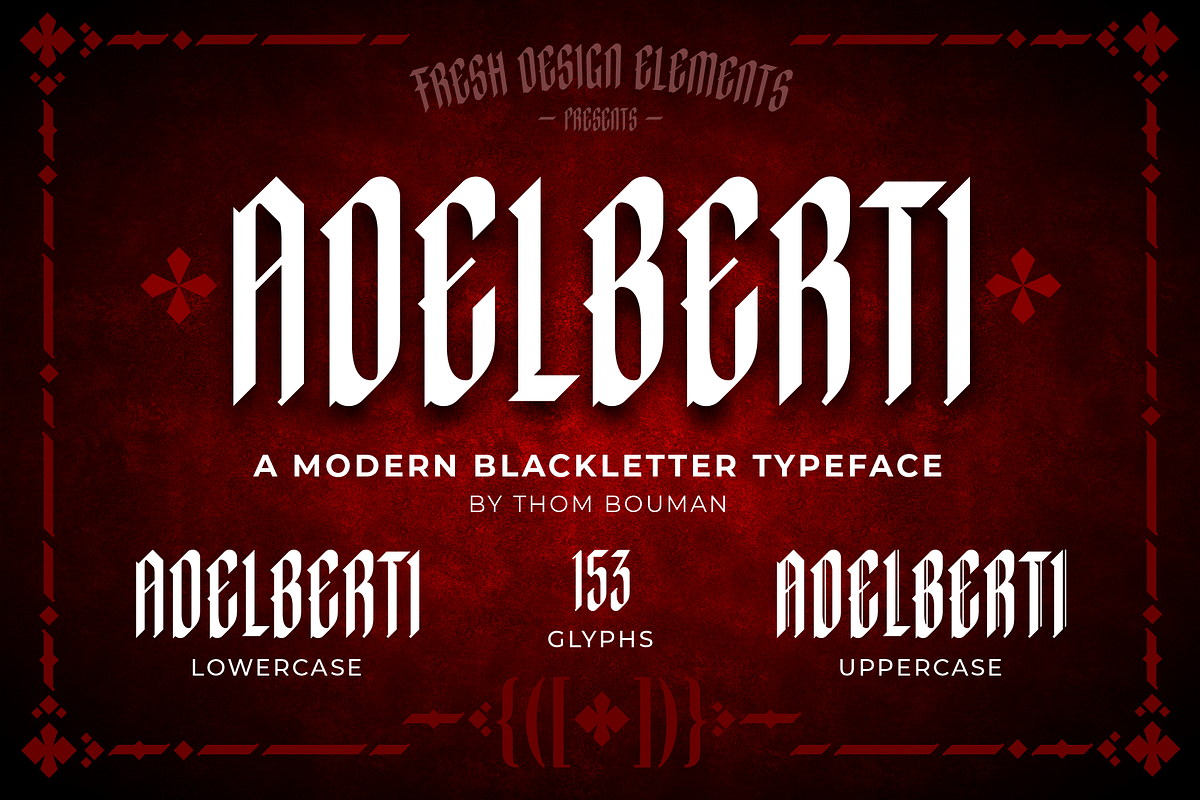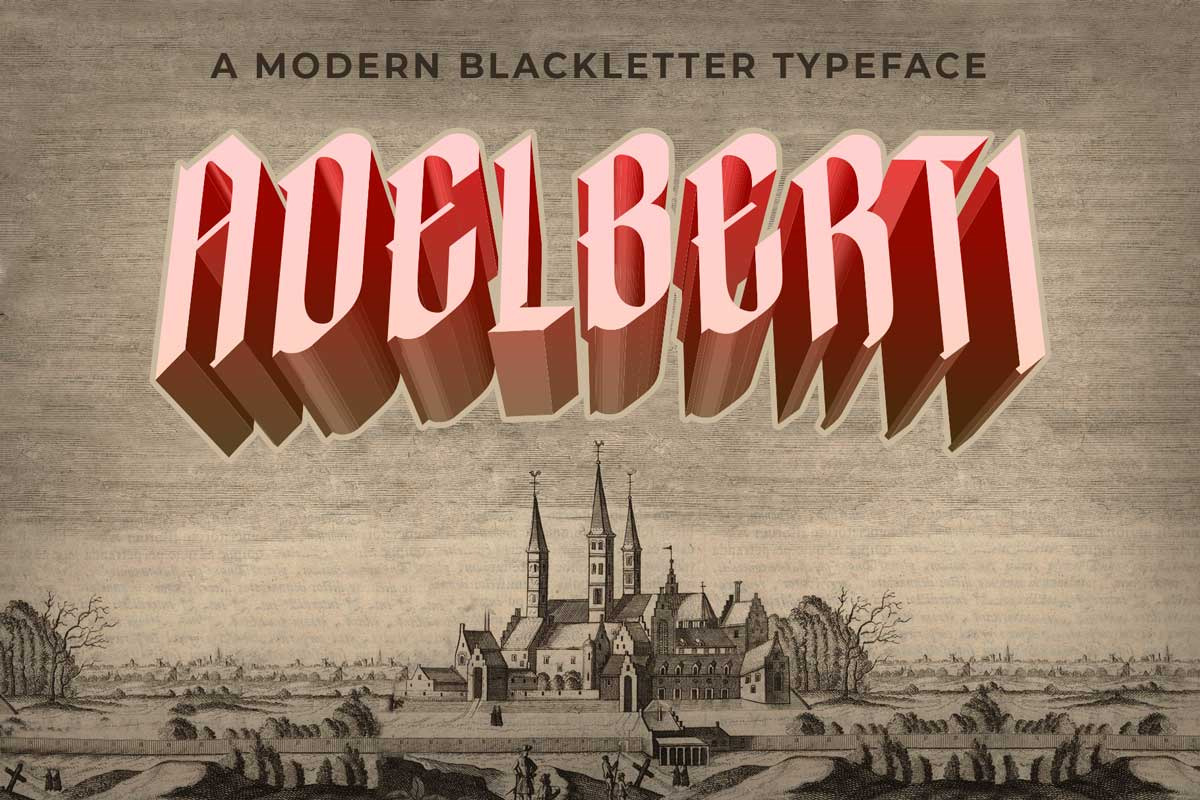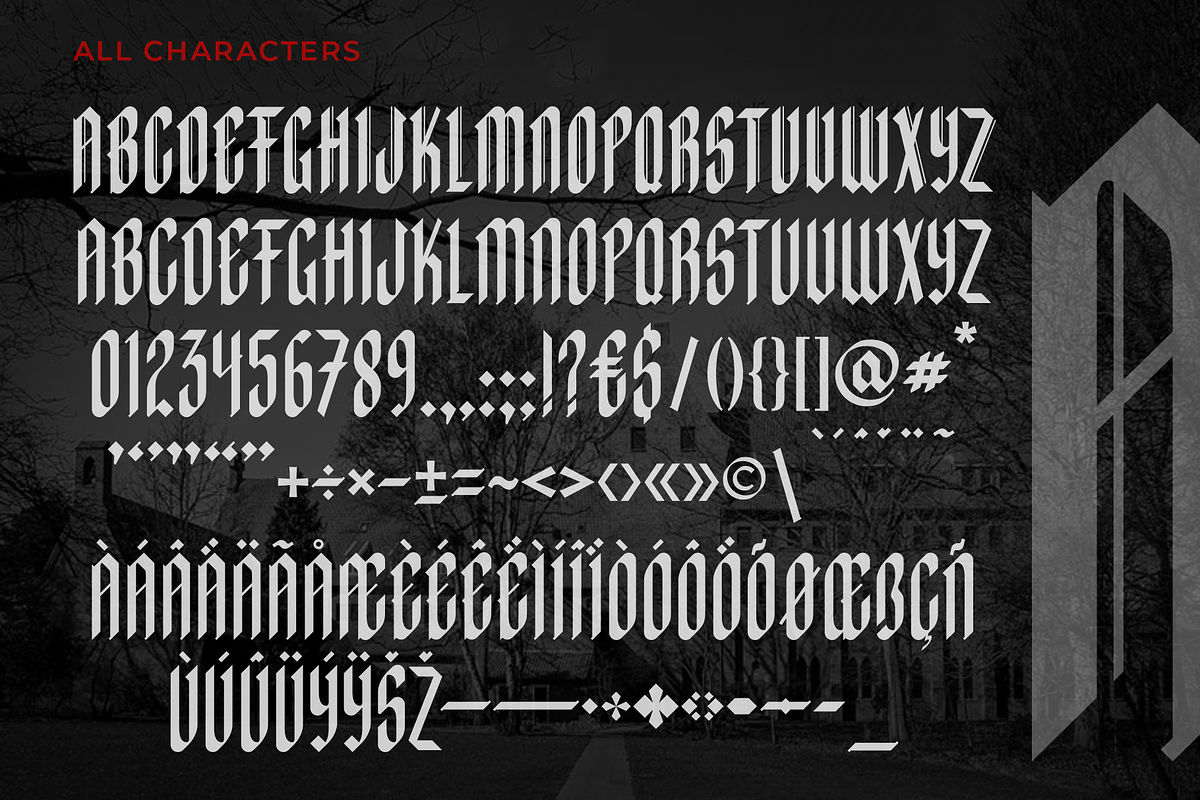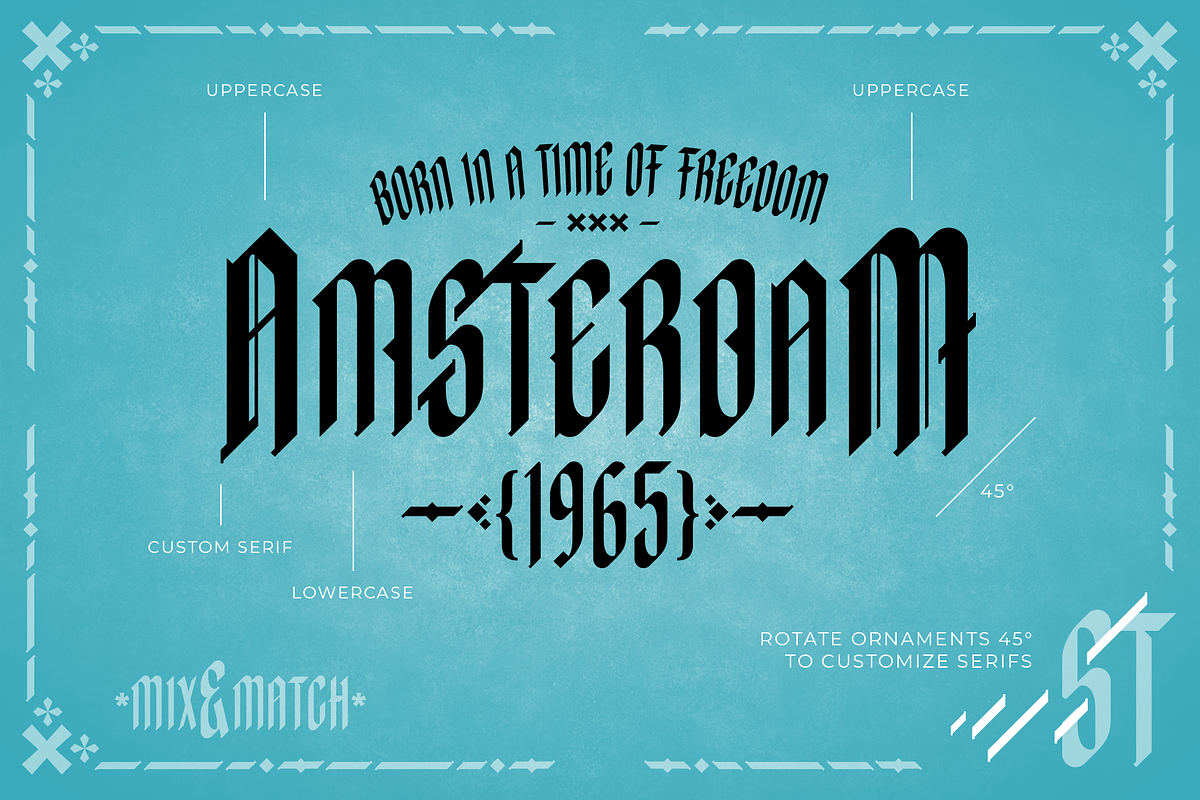
Adelberti | Modern Blackletter
Adelberti is new font from Thom Bouman at Fresh Design Elements. A clean and minimal take on blackletters with a condensed look. A real modern blackletter.
The Adelberti typface consists of 2 fonts: Regular and Line.
Mix uppercase and lowercase with alternative glyphs and ornaments to create an interesting look.
The Adelberti font includes a full set of capital letters in 2 variations, as well as multi-lingual support, numerals, punctuation & extra ornament shapes. A total of 163 glyphs.
Adelberti blackletter fonts are extremely suitable for headings, logo's and packaging designs.
- Basic Latin A-Z, A-Z
- Multi-Lingual
- Alternate Characters
- Ornaments
The Story - The St. Adalbertus (also Adelbertus) abbey is a 5 minute walk from my house in Egmond-Binnen, The Netherlands. Monks still live and work there. They use to make beer, but a nearby brewery has been making their 'Sancti Adalberti' for years now. A great fit for my new font.